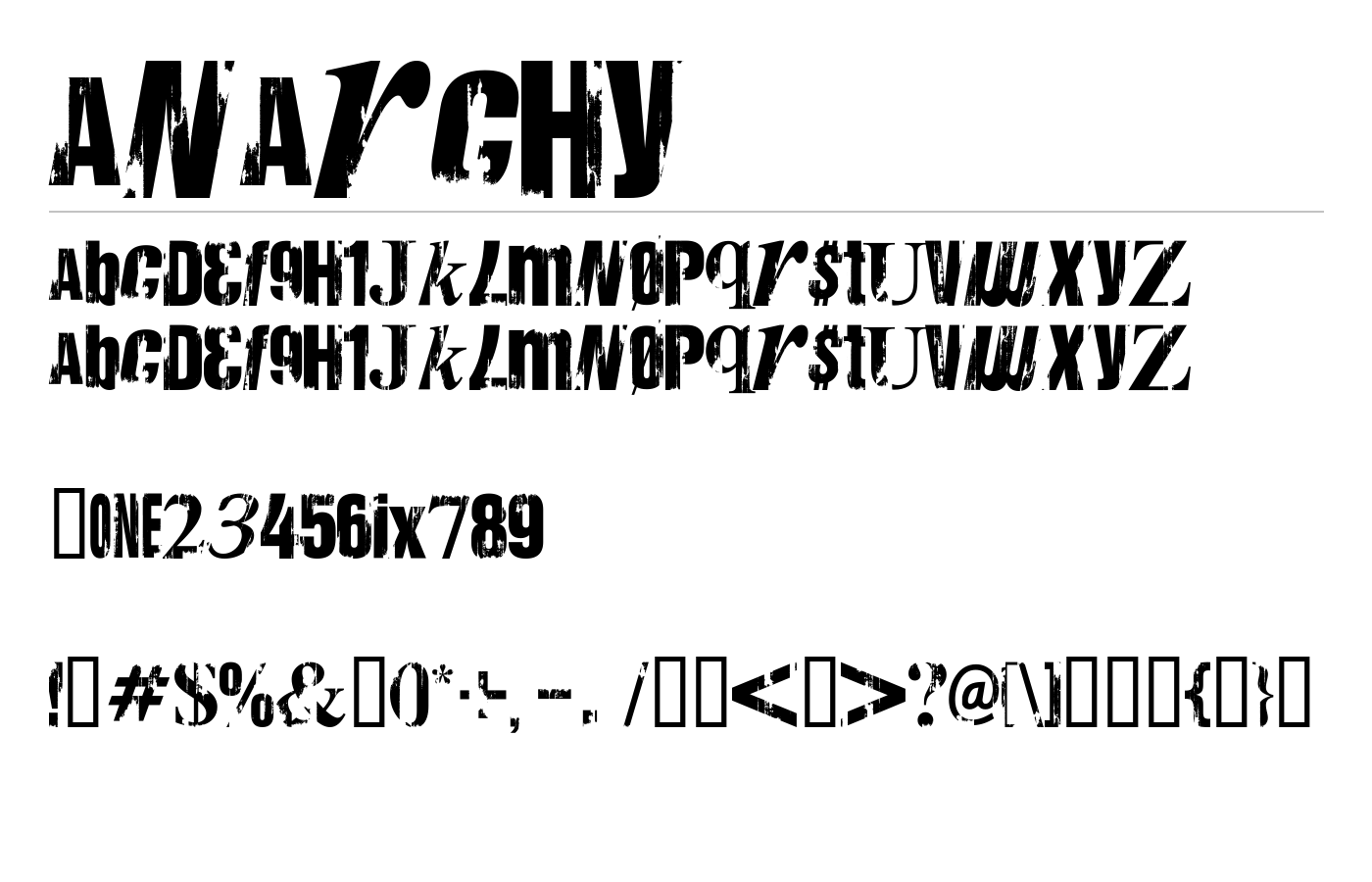
Anarchy Font is a bold, distressed sans serif typeface with a strong urban and grunge vibe. Its rough, uneven edges and textured strokes give it an edgy, rebellious personality that works well for striking headlines, posters, and branding aimed at alternative or underground cultures. This font’s chaotic style makes it ideal for designs that want to convey energy, defiance, and raw creativity.
Anarchy Font
About Anarchy Font
| Font family | Anarchy Font |